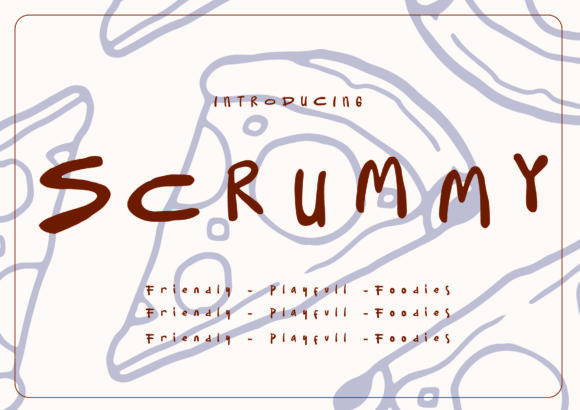
Unleash your creativity with Scrummy, the ultimate display font that's ready to take your designs to the next level! Let your imagination run wild as you explore the boundless possibilities of Scrummy, a captivating font that's perfect for creating dynamic headlines, eye-catching posters, and stunning social media graphics.
With its playful and carefree vibe, Scrummy has the power to transform ordinary words into captivating statements. Its distinct characters dance across the screen, inviting your audience to embark on a journey of visual exploration. Whether you're a seasoned designer or just starting out, Scrummy is the perfect tool to add a touch of magic to your work.
Designed by the talented Randoezim, Scrummy is a visual masterpiece that combines unique letterforms with an irresistible charm. Its quirky personality shines through in every curve and stroke, making it the ideal choice for adding a personal touch to your designs.
Stand out from the crowd and make a lasting impression with Scrummy, the font that's as memorable as it is versatile. Download it today and unlock a world of creative possibilities that will leave your audience in awe!